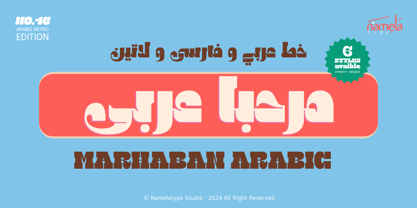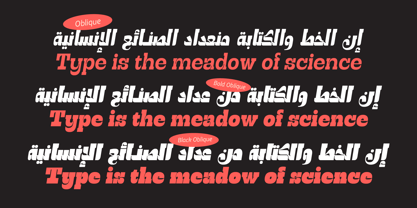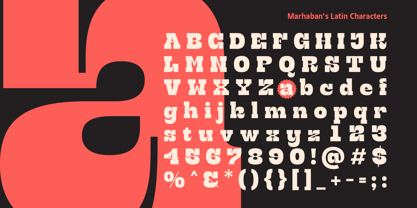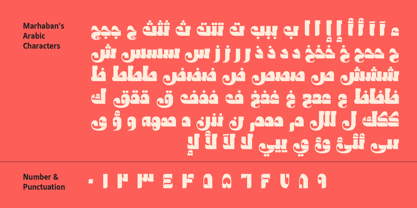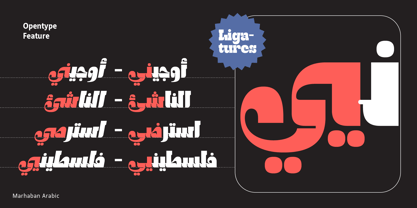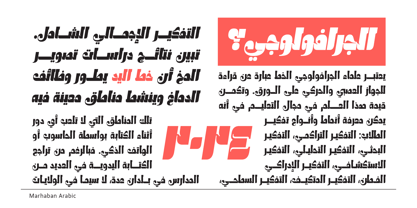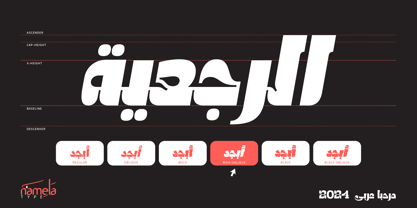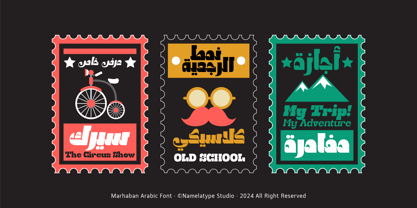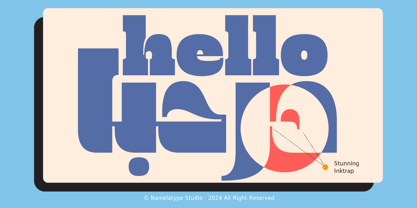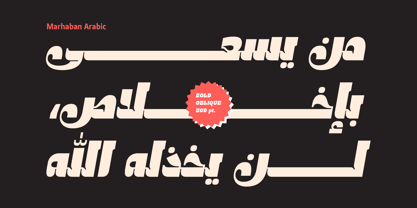
NT Marhaban Arabic
The NT Marhaban Arabic Font Family was designed by Nur Syamsi, Bustanul Arifin and published by NamelaType. NT Marhaban Arabic contains 6 styles and family package options. More about this family
NT Marhaban Arabic is a retro vintage slab serif font family brings nostalgic charm and bold character to any design. This font style combines the solid, thick serifs typical of slab fonts with retro-inspired details from past decades, often echoing 60s and 70s aesthetics. Its letters are usually well-defined, with strong lines and a touch of ruggedness or weathered texture, giving it a timeless, authentic feel. Marhaban Arabic retro vintage slab serif font Ideal for branding, packaging, and editorial designs, a vintage slab serif font family adds a bold yet classic appeal, capturing a heritage-inspired style that stands out across print and digital formats. This is an expanded version of the NT Marhaban, with the addition of Arabic, Farsy, and Urdu glyphs